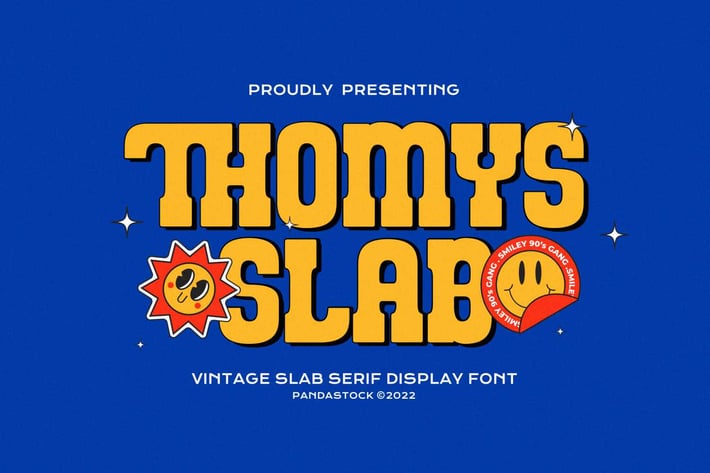
Thomys Slab - Bold Vintage Font
Thomys Slab is bold vintage font with visual elegance, smooth curves and beautiful ligatures clear, making your work look true and attractive.
A very versatile font that works in both large and small sizes. This font is suitable for a wide variety of projects such as invitations, logo, branding, magazine, photography, card, product packaging, mugs, quotes, poster, label, signature and more.